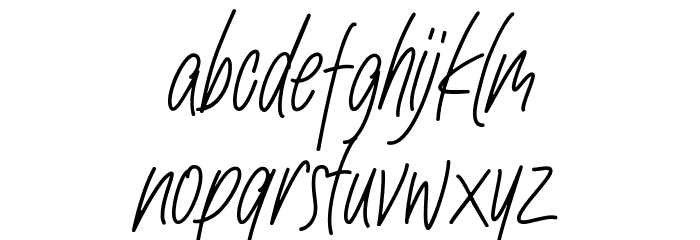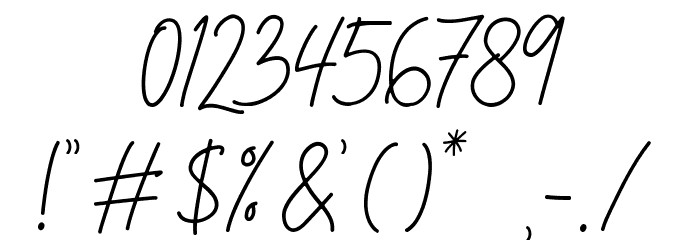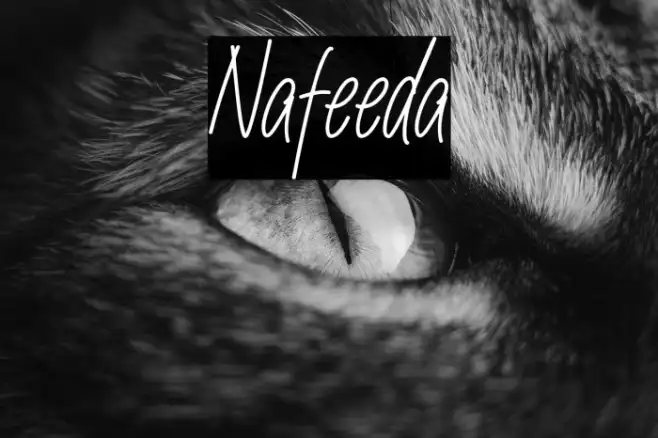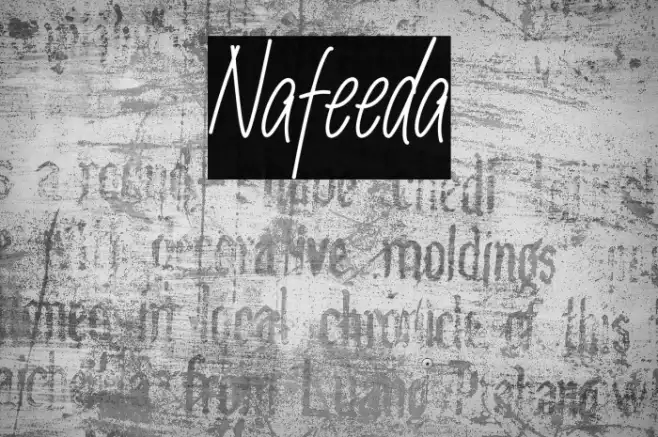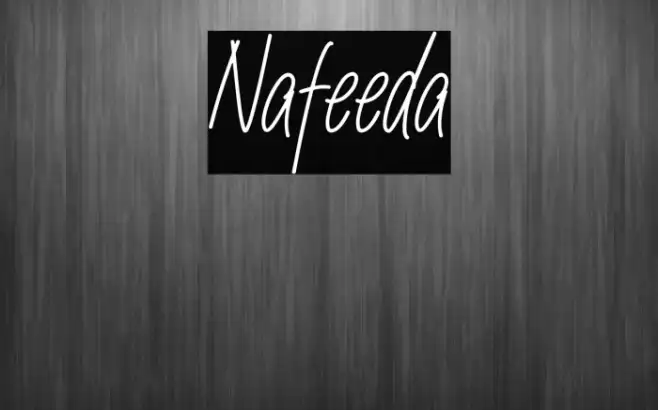
Nafeeda Font
This font features a handwritten style with a casual and flowing appearance. The letters are slightly slanted, giving it a dynamic and lively feel. The strokes are consistent in width, providing a uniform look across all characters. The uppercase letters are tall and elegant, while the lowercase letters maintain a playful and approachable vibe. Numbers and special characters are designed to match the overall aesthetic, ensuring a cohesive look. This font is perfect for projects that require a personal touch or a creative flair.
A casual handwritten font with a dynamic and flowing style.
- Proposed Projects: Ideal for greeting cards, invitations, personal branding, and creative projects.
- Category: Handwritten
- Overall Style: Casual
- Use Case: Logos, Invitations, Personal Branding